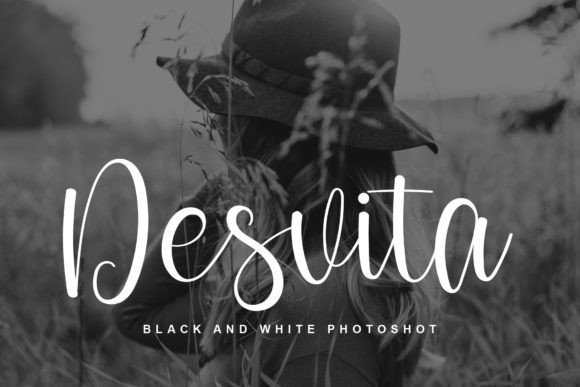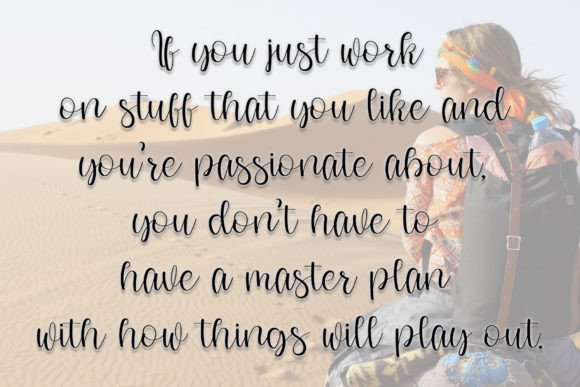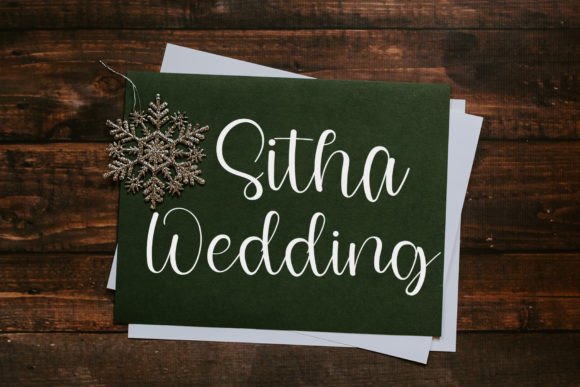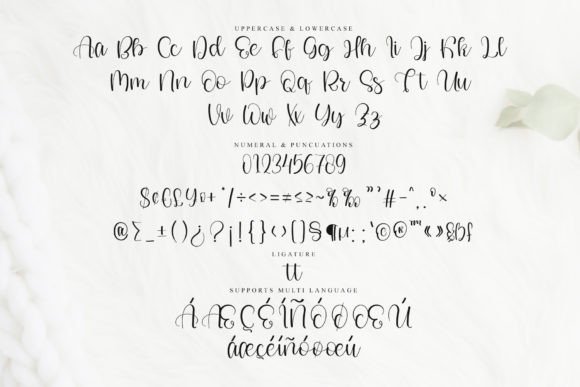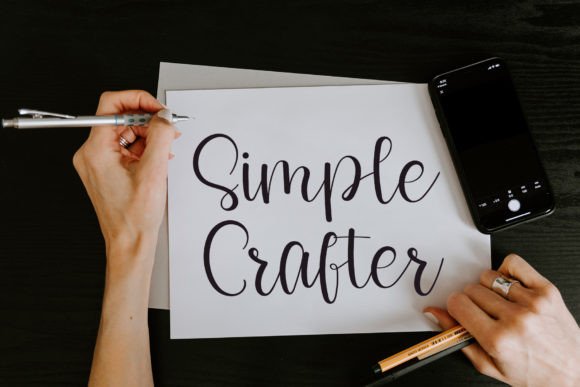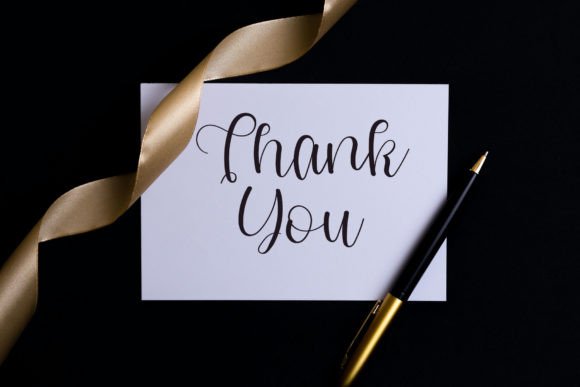
Future Font
About Future Font
Future font is a stylish and modern handwritten typeface designed to bring a fresh and vibrant feel to a wide range of creative projects. Its contemporary design makes it highly versatile, ideal for everything from greeting cards and headlines to branding and product packaging. With Future font, you can add a joyful and engaging touch that enhances the visual appeal of your work.
Stylish Modern Handwritten Design
The unique charm of Futurefont lies in its sleek, modern handwritten style. It blends smooth curves and natural strokes, creating an authentic yet polished look. This balance makes it perfect for both casual and professional projects, giving your designs a friendly but sophisticated vibe.
Versatile Uses Across Projects
Futurefont works beautifully in many design contexts. Whether you’re creating eye-catching headlines for magazines or stylish branding for products, this font adapts seamlessly. It also adds personality to greeting cards, invitations, and social media posts, making your messages more impactful and memorable.
Access All Glyphs and Ligatures
Futurefont is PUA encoded, allowing easy access to all of its amazing glyphs and ligatures. This feature provides you with enhanced creative flexibility, enabling you to customize your typography and achieve unique effects without hassle.
Why Choose Future Font?
With its modern, stylish look and wide applicability, Futurefont is a valuable addition to any designer’s toolkit. It guarantees to inject a happy and inviting feel into every project, helping your designs stand out and connect with your audience.
Add a Joyful Touch to Your Designs
Incorporate Futurefont into your work to create designs that feel lively and personal. Its contemporary handwritten style ensures your projects convey warmth, creativity, and professionalism all at once.